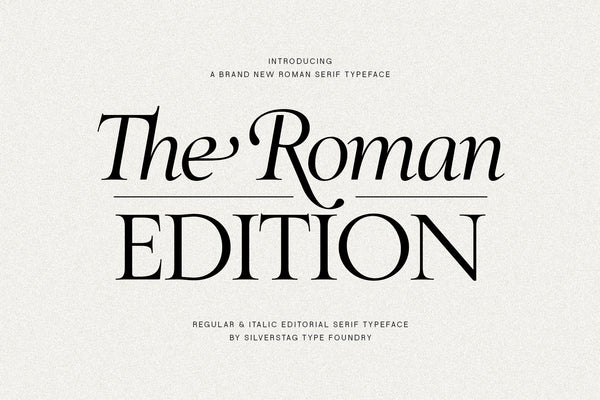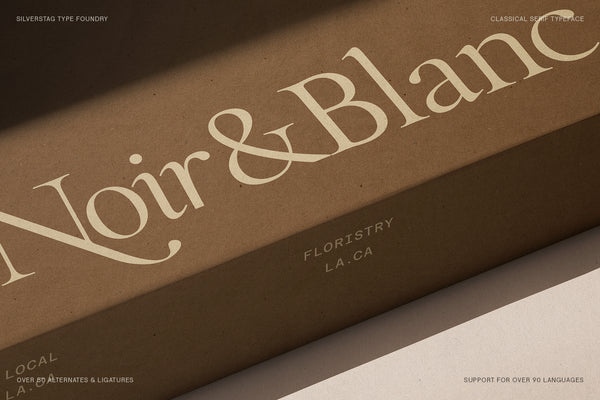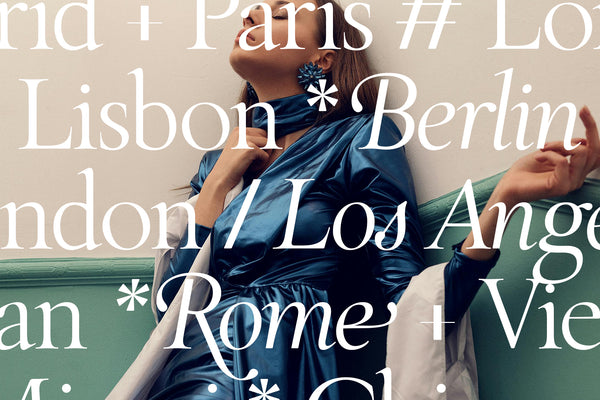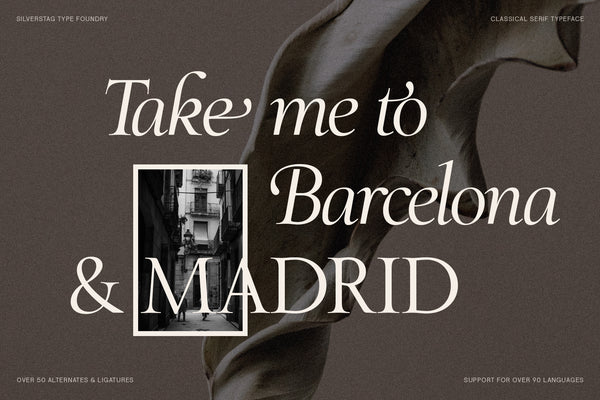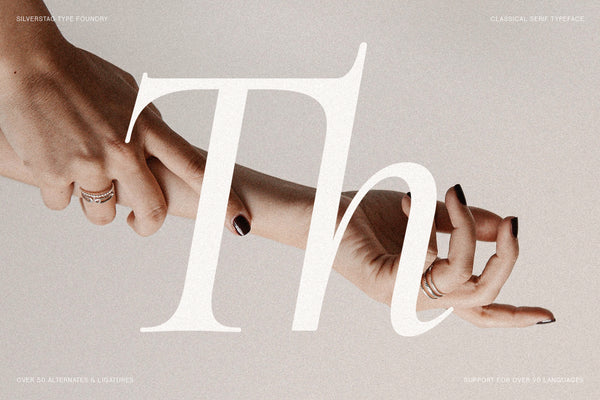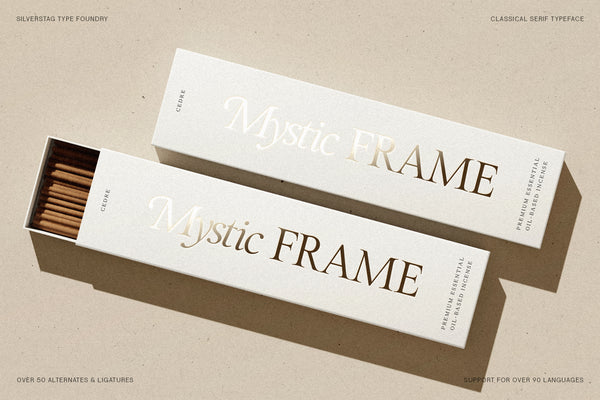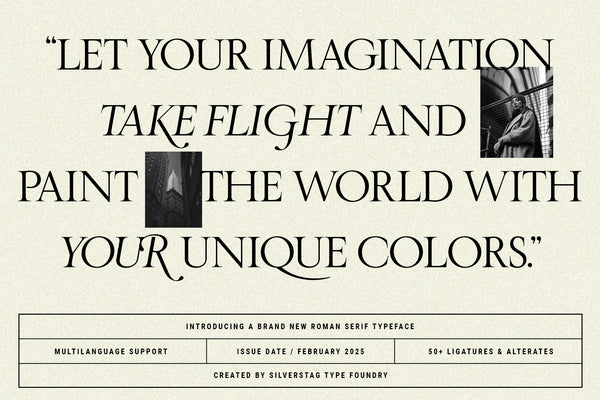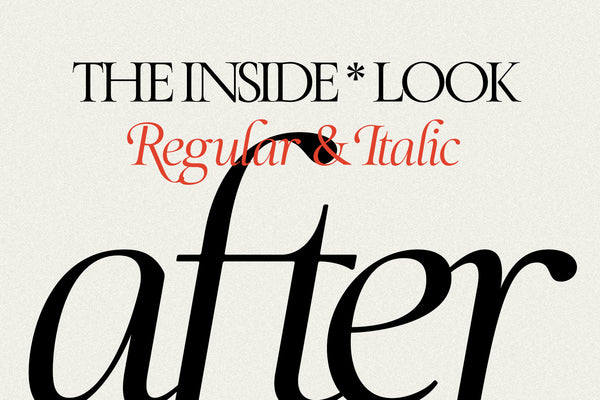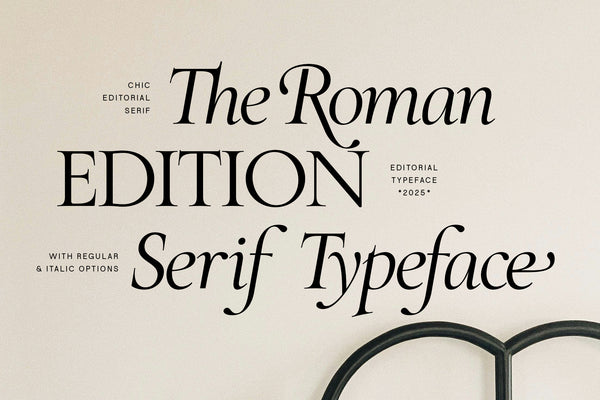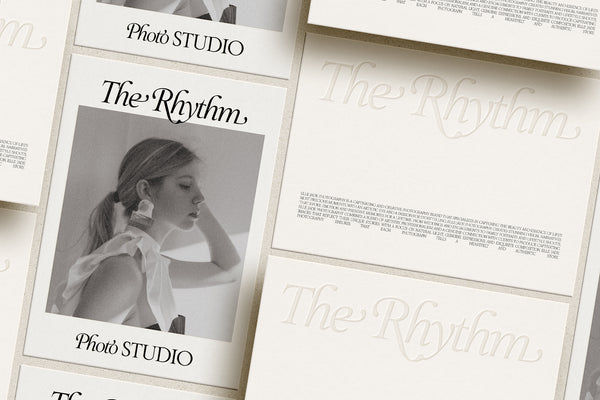
SLTF The Roman Edition - A Classical Serif Typeface
SLTF The Roman Edition is a sophisticated serif typeface inspired by the grandeur of ancient Roman letterforms. Designed with modern refinement, it merges classical proportions with delicate detailing, making it ideal for luxury branding, editorial layouts, high-end packaging, and refined digital design.
Crafted with care and clarity, The Roman Edition...
SLTF The Roman Edition is a sophisticated serif typeface inspired by the grandeur of ancient Roman letterforms. Designed with modern refinement, it merges classical proportions with delicate detailing, making it ideal for luxury branding, editorial layouts, high-end packaging, and refined digital design.
Crafted with care and clarity, The Roman Edition includes two distinctive styles—Regular and Italic—each designed to elevate your typography with grace and elegance. With 50+ ligatures and alternates, this typeface offers seamless letter connections and expressive versatility for titles, headlines, and stylish logotypes.
Its high contrast and optical balance ensure stunning performance in both print and digital applications, while multi-language support for 90+ languages allows your designs to resonate globally.
Global city wall in SLTF The Roman Edition white serif including Madrid Paris London Lisbon Berlin and Rome over a photo of a person in glossy blue
Large Th ligature in cream SLTF The Roman Edition serif over a photo of two clasped hands wearing rings
Quote let your imagination take flight and paint the world with your unique colors in SLTF The Roman Edition serif with a typeface spec table
SLTF The Roman Edition chic editorial hero, The Roman Edition Serif Typeface in black serif on a cream background with a pair of glasses
Global city wall in SLTF The Roman Edition white serif including Madrid Paris Berlin Prague Istanbul and New York over a beach parasol photo
Noir and Blanc stacked boxes mockup in SLTF The Roman Edition, cream serif on brown kraft boxes with a small inset photo
Visual Alchemy stationery mockup in SLTF The Roman Edition, serif on scattered pastel blue and peach business cards
Black on white city wall in SLTF The Roman Edition italic and roman serif including London Paris Madrid New York Prague and Istanbul
City wall in SLTF The Roman Edition black serif including Copenhagen Vienna Barcelona Lisbon and Philadelphia over crumpled paper with dried flowers
Theodore Roosevelt quote believe you can and you are halfway there in SLTF The Roman Edition serif over a photo of birds above the sea
Global city wall in SLTF The Roman Edition pale yellow serif including Madrid Vienna Athens Copenhagen Warsaw and Paris over a windblown portrait
The word Calm repeated in white SLTF The Roman Edition serif over a photo of a person on a swing against a pale sky
Noir and Blanc floristry box mockup in SLTF The Roman Edition, pale serif on a brown kraft box on a sunlit surface
Take me to Barcelona and Madrid in cream SLTF The Roman Edition serif over a dark sculpture photo with a small framed street photo
Mystic Frame matchbox mockup in SLTF The Roman Edition, pale serif on two cream boxes of matches on a textured surface
SLTF The Roman Edition style frame, The Inside Look heading, Regular and Italic in red, and a large swashed italic word after on a cream background
Photo Studio brochure mockup in SLTF The Roman Edition, the repeated words The Rhythm in pale serif with a black and white portrait on ivory pages
The Atelier fashion brand mockup in SLTF The Roman Edition, black serif with a large asterisk and est 1967 over a person in a white outfit
Colour city wall in SLTF The Roman Edition serif mixing white and red, including Madrid London Barcelona Berlin Vienna and New York on a tan background
Natalie Collective womenswear mockup in SLTF The Roman Edition, white serif over a black and white photo of a lighthouse on dunes
Realm of Light cosmetic tube mockup in SLTF The Roman Edition, serif on a cream tube labelled Cedre in warm brown tones
The surnames Garnier Toussaint Laurent Blanchet in pale yellow SLTF The Roman Edition serif caps over a black and white portrait
Overhead grid of Photo Studio cards in SLTF The Roman Edition, the repeated words The Rhythm in serif with black and white portraits on ivory
Christine modern flower shop mockup in SLTF The Roman Edition, white italic serif with an ampersand monogram over a dark intimate photo
Noir and Blanc floristry box mockup in SLTF The Roman Edition, pale serif on a brown kraft box on a sunlit surface
Global city wall in SLTF The Roman Edition white serif including Madrid Paris London Lisbon Berlin and Rome over a photo of a person in glossy blue
Take me to Barcelona and Madrid in cream SLTF The Roman Edition serif over a dark sculpture photo with a small framed street photo
Large Th ligature in cream SLTF The Roman Edition serif over a photo of two clasped hands wearing rings